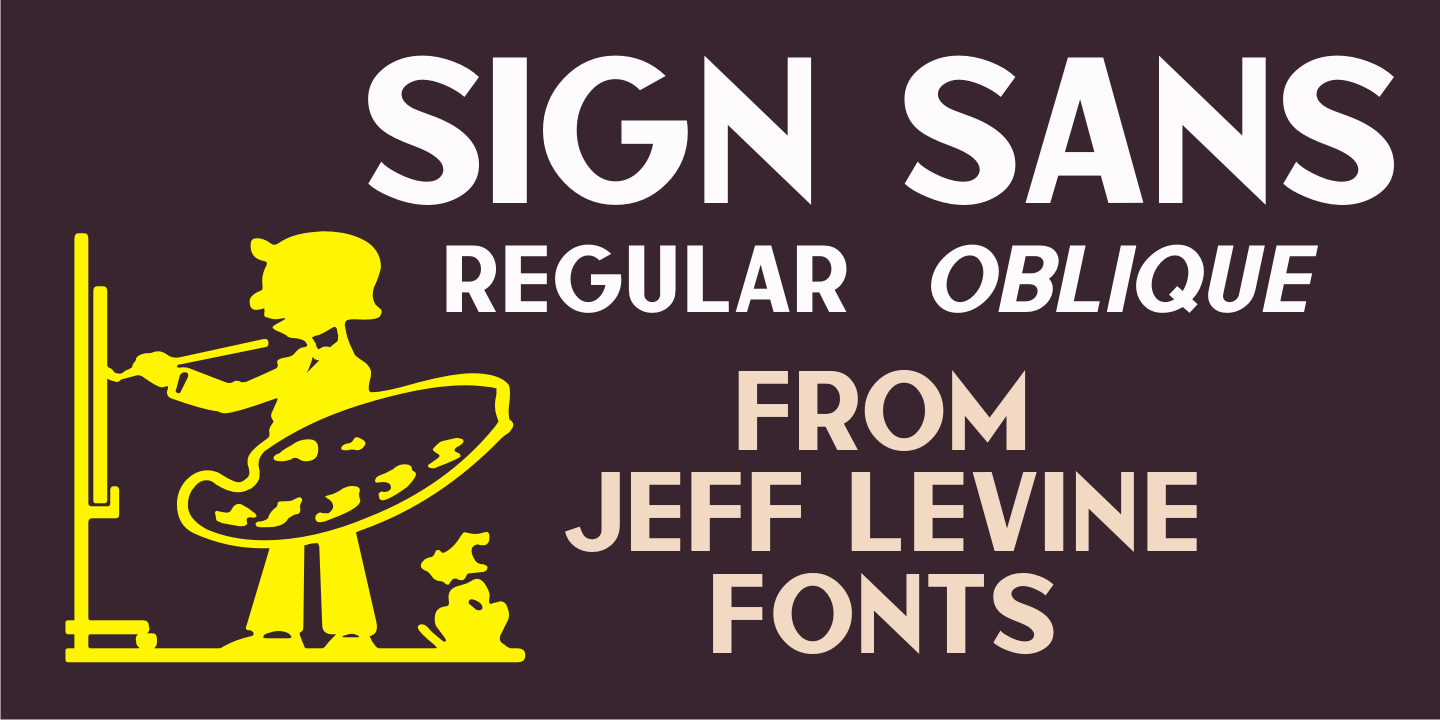
Sign Sans
The original source of design for Sign Sans JNL was an image online of an old New York drinking establishment called the Lenox Lounge.
The metal channels encasing the neon had an unusual 'feel' to some of the letters. While the original E,G and U of the sign looked 'interesting', they didn't quite fit the font's layout.
Those letters were scrapped for more traditional versions of them.